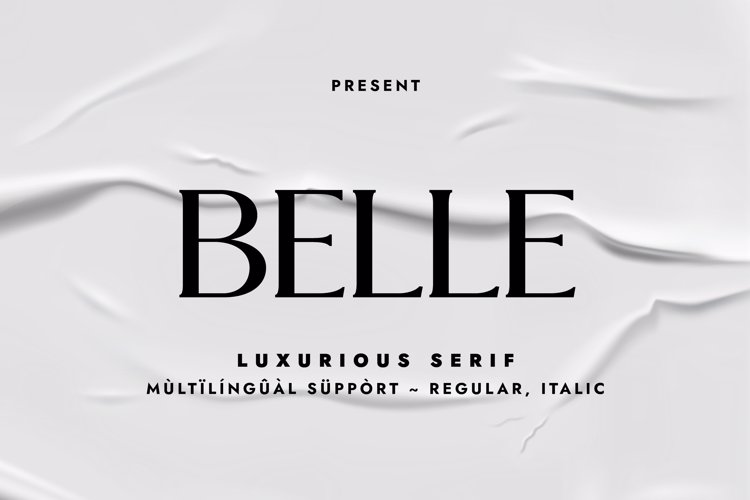
BELLE Font
ITALIC Regular Style
๐จ Font Name: Belle by Minimalist Art Studio
๐จ Font Description: Belle is a luxurious serif with graceful curves and multilingual supportโperfect for high-end branding, editorial elegance, and refined packaging.
โ Complete Latin set + multilingual diacritics
โ Alternates, stylistic sets & ligatures
โ Numbers, small caps, and extended punctuation
โ Bonus italics and family styles